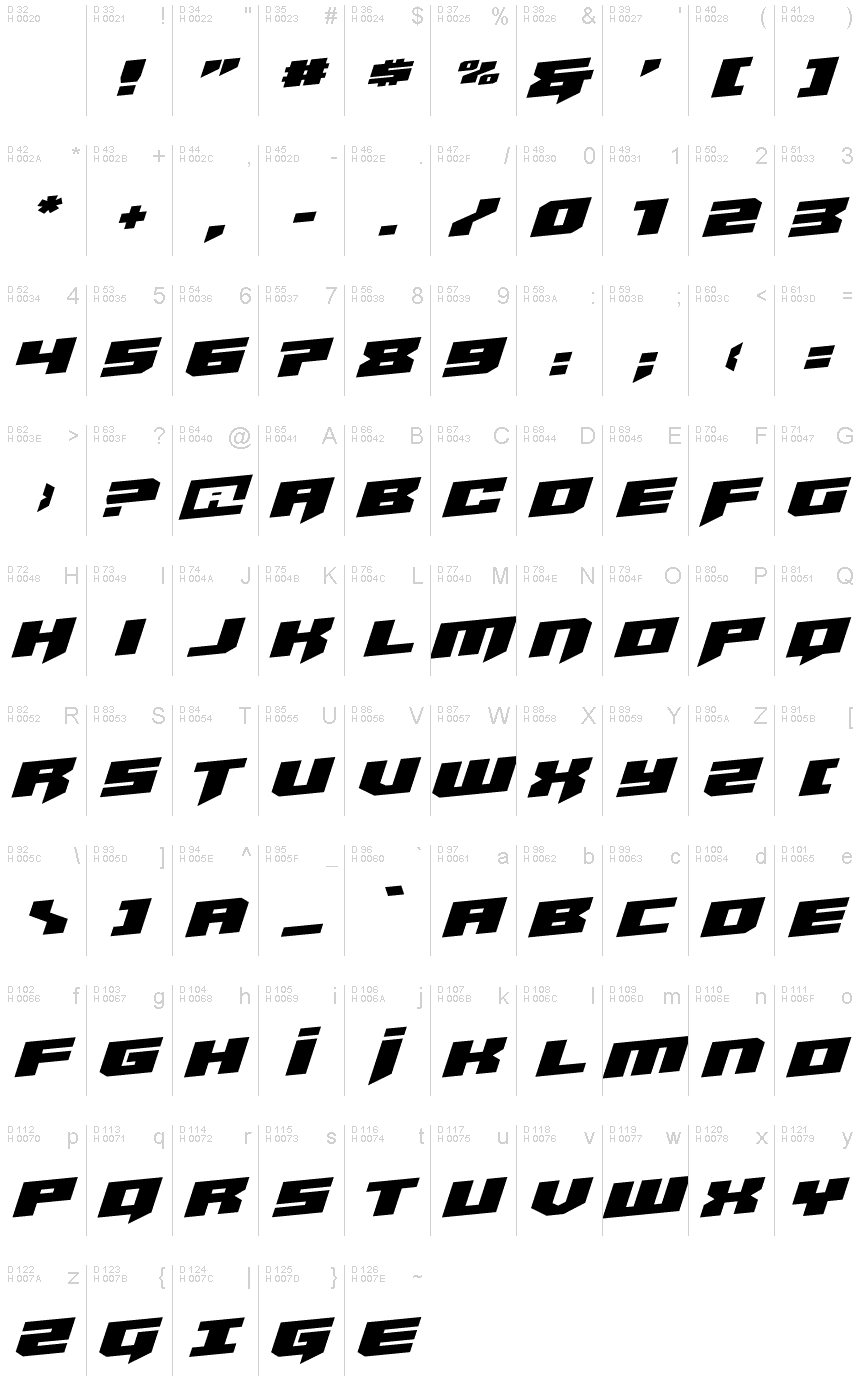
Bridge OFFicer Rotalic
Bridge OFFicer Rotalic, a striking addition to the Bridge OFFicer font family by Iconian Fonts, commands attention with its techno style and extra-bold weight. This display typeface boasts an extra-expanded width that amplifies its presence on any canvas. With sharp angles and a futuristic aesthetic, Bridge OFFicer Rotalic is tailor-made for projects that require a commanding typographic statement.
Designed to capture the essence of cutting-edge technology and modernity, this font's unique characteristics make it ideal for branding, poster design, game interfaces, and any creative endeavor that seeks to stand out. Its assertive lines and robust form convey strength and innovation.
Embrace the boldness of Bridge OFFicer Rotalic in your next project and let your words take center stage with a font that's as impactful as it is versatile.
Designed to capture the essence of cutting-edge technology and modernity, this font's unique characteristics make it ideal for branding, poster design, game interfaces, and any creative endeavor that seeks to stand out. Its assertive lines and robust form convey strength and innovation.
Embrace the boldness of Bridge OFFicer Rotalic in your next project and let your words take center stage with a font that's as impactful as it is versatile.